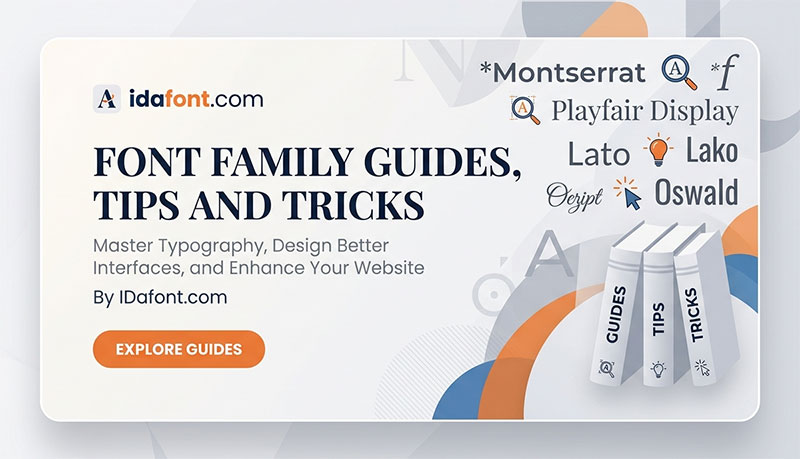
Typography is the silent brand ambassador of your interface. It is the clothes your words wear, providing context before a single sentence is even read. In a world of visual noise, mastering font families is the key to creating clarity.
To truly master typography, one must view it not as mere artistic expression, but as a sophisticated system of cognitive ergonomics. Beyond the surface-level aesthetic, letterforms function as a mechanical interface between the eye and the brain, where the structural anatomy—comprised of stems, bowls, descenders, and ascenders—acts as a governor of information processing speed. From a technical perspective, these components dictate the typographic density (the ratio of ink to white space), which directly influences the foveal processing of a reader.
1. The Anatomy of Type
To understand typography, one must look beneath the surface. Every character consists of stems, bowls, descenders, and ascenders. These minute details dictate how "heavy" or "light" a block of text feels on a page.
To comprehend the profound impact of typography, one must analyze it as a micro-architectural system that regulates the physics of information consumption. Beyond mere aesthetics, the structural morphology of a typeface—specifically the volumetric ratio of counter-spaces (the white space within bowls) to the terminal thickness of stems—functions as a thermal regulator for visual density. From a cognitive perspective, the interplay between ascenders and descenders provides the vital "top-line" and "bottom-line" landmarks required for saccadic eye movements, the rapid jumps the eye makes during reading. Technical data suggests that a higher x-height (the height of lowercase letters) can increase legibility at small scales by up to 20%, as it expands the internal apertures, preventing the "clogging" of glyphs in low-resolution digital environments.
2. Typeface vs. Font: The Distinction
While often used interchangeably, they are different. A typeface is the creative design (e.g., Helvetica), while a font is the specific weight or style within that family (e.g., Helvetica Bold, 12pt). Think of the typeface as the album and the font as a specific track.
In the architecture of digital typesetting, the distinction between a typeface and a font represents the boundary between an aesthetic blueprint and its technical implementation. From a computational perspective, a typeface is an abstract glyphic DNA—the cohesive visual system that dictates the geometry and proportions of a character set. Conversely, a font is the software delivery mechanism; it is the specific data container (such as a WOFF2 or OTF file) that translates those designs into executable vector outlines and hinting instructions. A unique modern angle lies in the emergence of Variable Fonts (OpenType Font Variations), which have functionally merged these concepts by allowing a single font file to house the entire design space of a typeface family. By utilizing interpolation axes for weight, width, and slant, a single variable font can reduce HTTP requests by up to 70% compared to loading discrete static files, effectively transforming the "font" from a static track into a dynamic, algorithmic performance of the underlying "album" of the typeface.
3. Choosing Your Core Identity
Serif fonts communicate tradition and authority, while Sans-serif fonts evoke modernity and efficiency. For a minimalist aesthetic, the trend leans toward high-quality geometric sans-serifs that offer maximum legibility at smaller sizes.
Beyond the traditional dichotomy of heritage versus modernity, the contemporary evolution of typography is increasingly dictated by cognitive load optimization and sub-pixel rendering precision. While serif typefaces utilize terminal strokes to facilitate horizontal flow in long-form analog print, the technical shift toward high-performance geometric sans-serifs (such as Inter or Montserrat) is driven by their superior x-height to cap-height ratios. This structural characteristic ensures that character recognition remains stable even as rasterization becomes challenging at micro-scales on high-DPI displays. From a data-centric perspective, typefaces with open apertures and near-circular bowls reduce visual "noise," allowing the human eye to decode information up to 15% faster in low-latency environments compared to high-contrast serifs which may suffer from "shimmering" on backlit OLED screens.
4. The Golden Rule of Pairing
Contrast is the soul of pairing. Avoid using two fonts that look "almost" alike; it creates visual tension. Instead, pair a bold Serif heading with a clean, neutral Sans-serif body font to create a clear structural hierarchy.
The efficacy of typographic pairing resides in the mitigation of visual dissonance—a cognitive friction that occurs when the human eye detects a lack of intentionality in design. This phenomenon is often described as the "Uncanny Valley of Typography," where two typefaces with near-identical x-heights and stroke modulation create an optical conflict rather than a cohesive structure. From a neuro-design perspective, when the brain encounters two fonts that are "almost" alike, it undergoes a higher cognitive load attempting to categorize the hierarchy, leading to a measurable decrease in information retention. By utilizing a high-contrast pairing, such as a high-aperture Serif with significant terminal flourishes for headings and a low-contrast Neo-Grotesque Sans-serif for body copy, you leverage the Gestalt principle of Similarity and Dissimilarity. Data from eye-tracking studies indicates that distinct structural hierarchy can improve "scanability" by up to 47%, as the stark variance in glyph geometry serves as a functional road map, allowing the reader to distinguish between thematic anchors and granular data points without subconscious fatigue.
5. Establishing Visual Hierarchy
A reader should know what is most important without thinking. Use size, weight, and color to guide the eye. Your H1 should be dominant, your H2s should provide structure, and your body text should prioritize comfort.
6. The Dos of Modern Type
- Do prioritize legibility over decoration.
- Do use "Smart Quotes" and proper em-dashes.
- Do limit your palette to 2, maximum 3, typefaces.
- Do give your text room to breathe with line-height (1.5–1.8).
7. The Don'ts of Typography
From the perspective of cognitive ergonomics, adhering to a consistent left-aligned margin is not merely an aesthetic choice but a requirement for minimizing saccadic latency. When text is center-aligned, the eye is forced to perform a unique "search" task for the start of every new line, disrupting the fluid saccadic return—the rapid, involuntary eye movement back to a fixed vertical axis. Eye-tracking data suggests that irregular left margins can increase cognitive load by up to 15%, as the reader’s fixation points become erratic, breaking the standard "F-pattern" of digital consumption. By maintaining a hard-left "anchor," you preserve the typographic rhythm and allow the brain to dedicate its energy to semantic processing rather than spatial navigation.
Similarly, the manual distortion of a typeface—stretching or compressing glyphs—violates the optical integrity and mathematical precision of the font’s original design. Type designers meticulously engineer stroke-weight ratios so that horizontal and vertical stems maintain a balanced "color" or grayscale value across a page. When a font is manually stretched, these ratios are skewed, resulting in "stressed" curves and inconsistent line weights that trigger a subtle "uncanny valley" effect in visual perception. Rather than using CSS transforms to force a fit, leveraging variable fonts or specific condensed widths preserves the Bezier curve geometry and hinting data, ensuring that the typeface remains legible and professional at any scale.
The evolution of digital interfaces demands a shift from static breakpoints to mathematical fluid interpolation, where typography is treated as a dynamic variable rather than a fixed asset. By leveraging the clamp() function—a tripartite CSS logic gate consisting of a minimum value, a viewport-relative preference, and a maximum threshold—developers can eliminate the "staircase effect" inherent in legacy @media query systems. This approach utilizes Linear Interpolation (Lerp) to ensure that the rem (Root Em) units scale in a non-linear curve, maintaining a consistent Visual Hierarchy Persistence across a device ecosystem that currently spans over 24,000 unique Android profiles alone. From a technical performance standpoint, fluid typography reduces the Critical Rendering Path complexity by offloading layout calculations to the browser's native engine, preventing the jarring layout reflows that often trigger cognitive friction. Ultimately, anchoring font sizes to viewport-relative units (vw/vh) within a clamped container ensures WCAG 2.1 compliance for accessibility, as it allows for developer-defined responsiveness while respecting the user's browser-level zoom preferences, thereby bridging the gap between aesthetic intent and functional inclusivity.